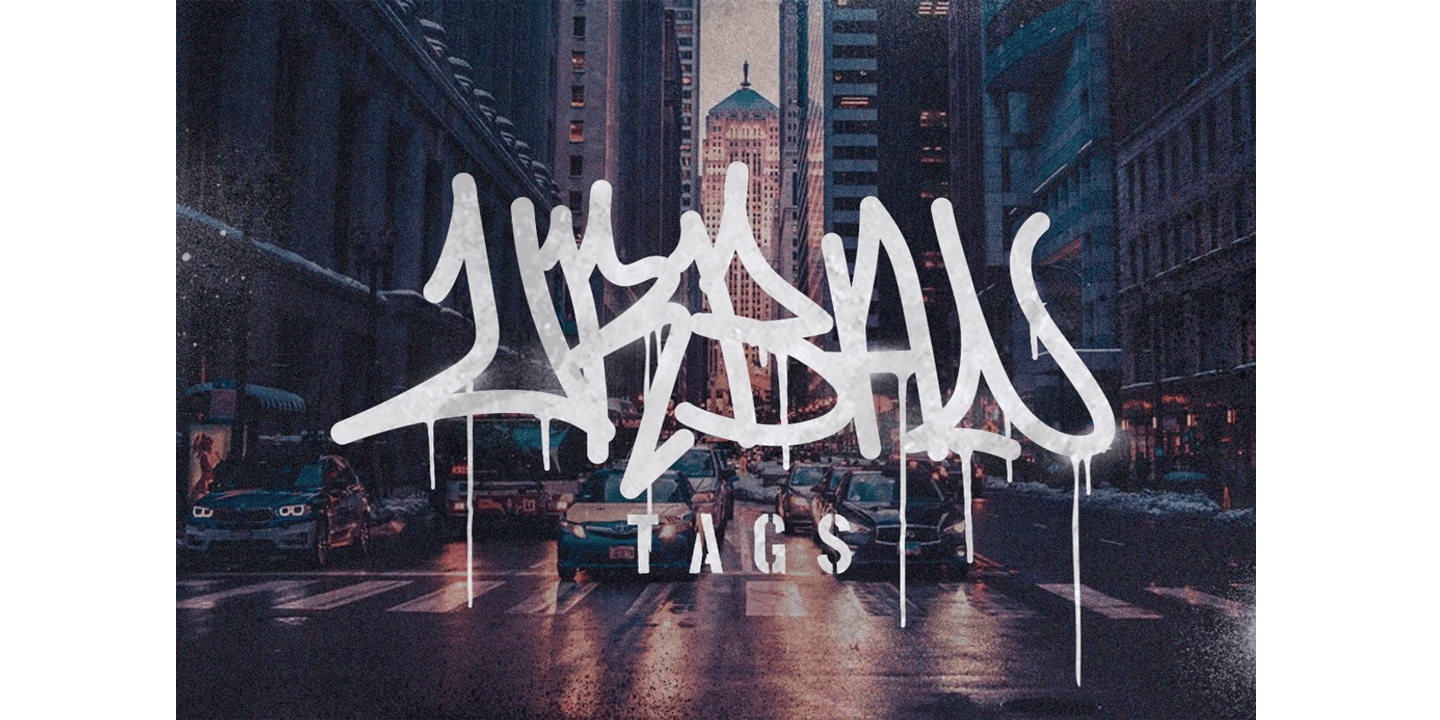
Peinture Fraiche®
Peinture Fraiche® Font Family - Poster #1
Peinture Fraiche® Font Family - Poster #2
Peinture Fraiche® Font Family - Poster #3
Peinture Fraiche® Font Family - Poster #4
Peinture Fraiche® Font Family - Poster #5
About Peinture Fraiche®
This is a delightful graffiti classic font. The letterforms have a shattered look that gives character to the typeface. The heavy drop shadow effects make them stand out. This is available only in uppercase form. Suitable for covers, posters, packaging, merchandise, logos and all other media.
Designed by: Qkila